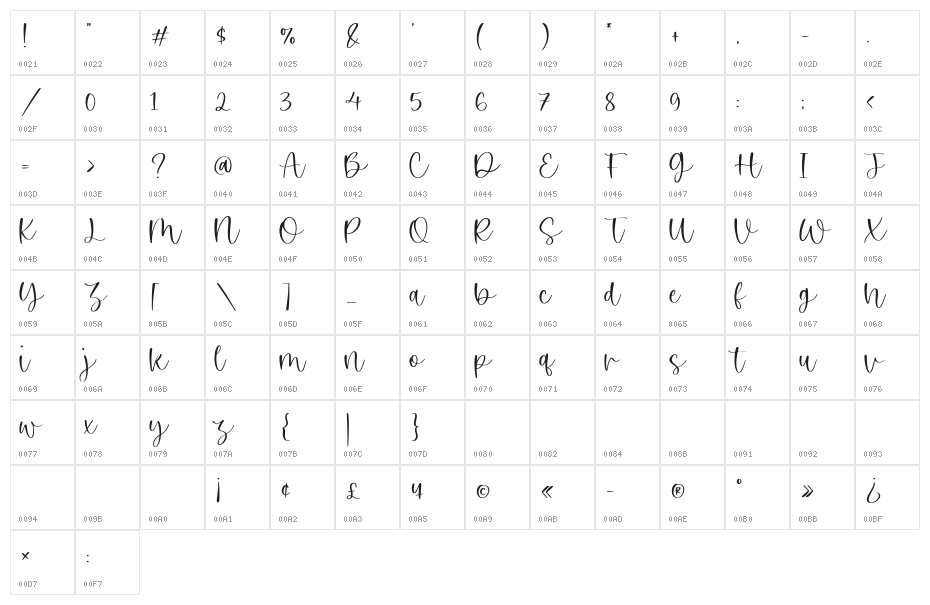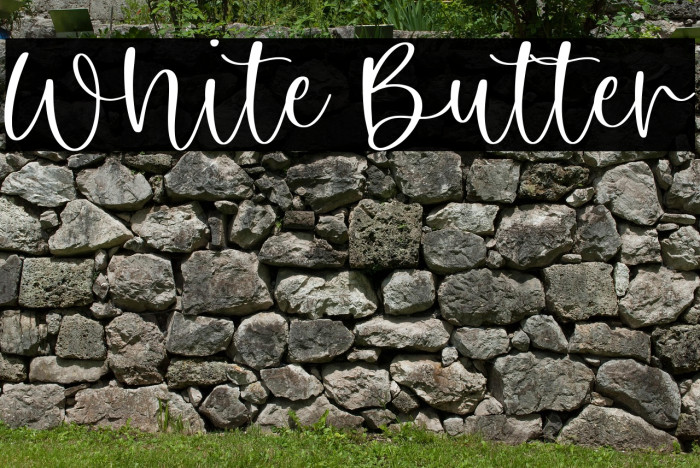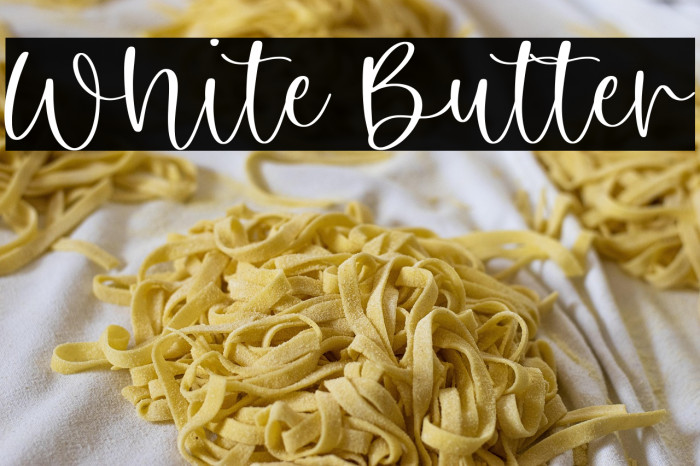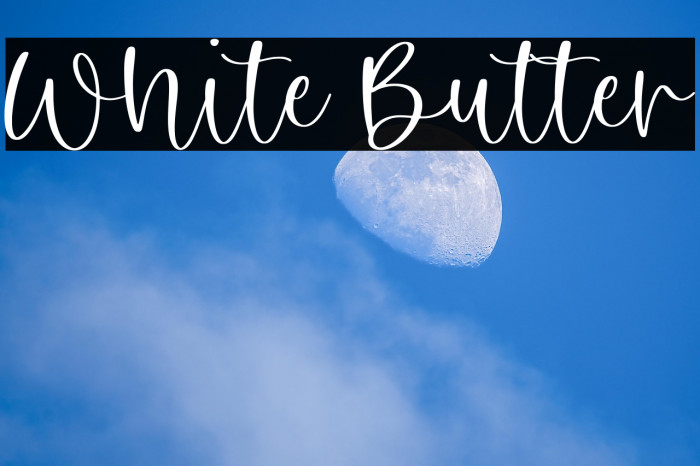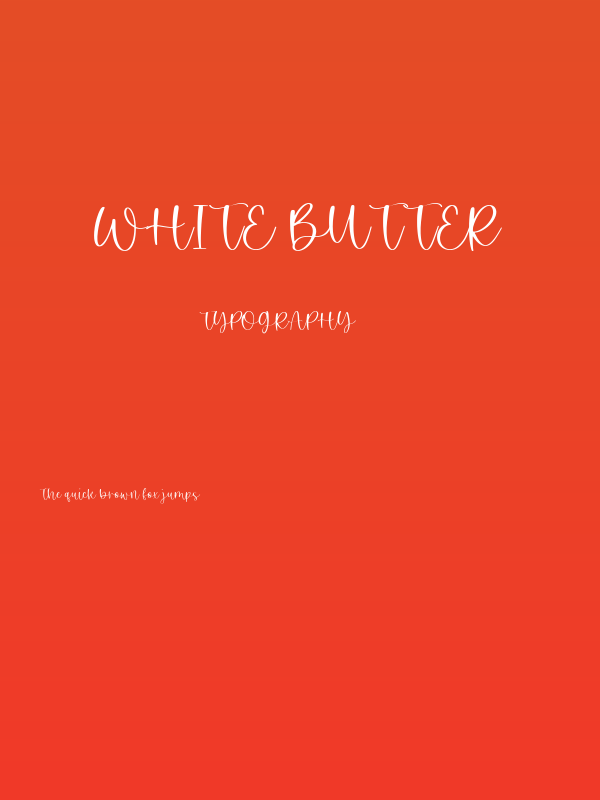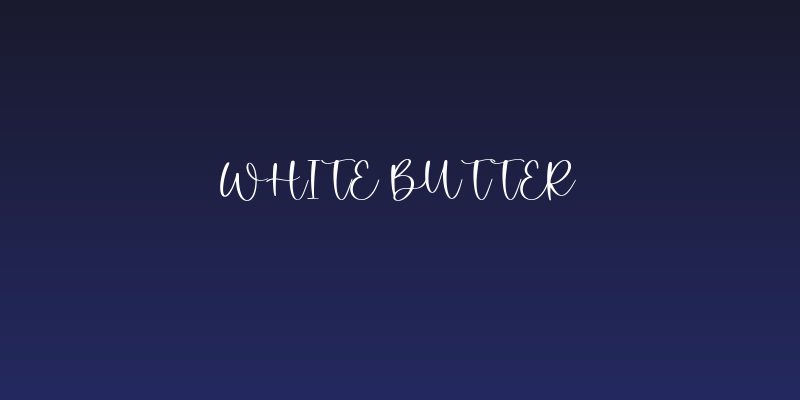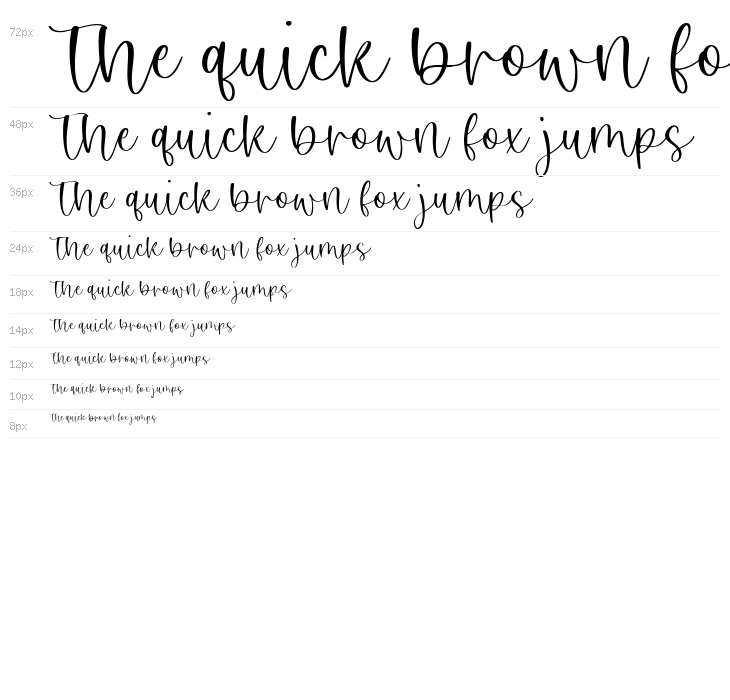
White Butter Font
White Butter Description
This font exudes a playful and elegant charm with its flowing, cursive style. The letters are interconnected, giving a sense of continuity and fluidity. The strokes are smooth and rounded, with a slight variation in thickness that adds a touch of sophistication. The uppercase letters are slightly more elaborate, while the lowercase letters maintain a consistent, friendly appearance. The numerals and special characters are designed to match the overall aesthetic, ensuring a cohesive look across all text. This font is perfect for projects that require a personal, handwritten touch.
| Proposed Projects | Ideal for wedding invitations, greeting cards, personal branding, and creative projects that require a handwritten feel. |